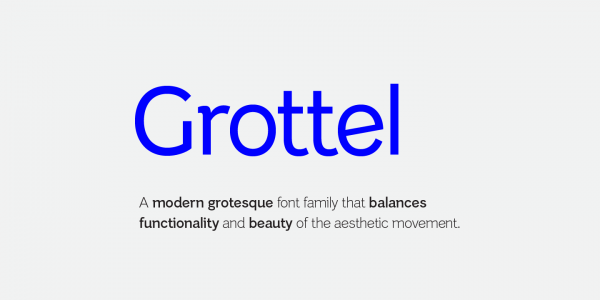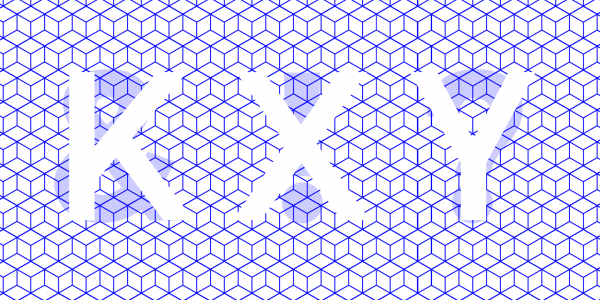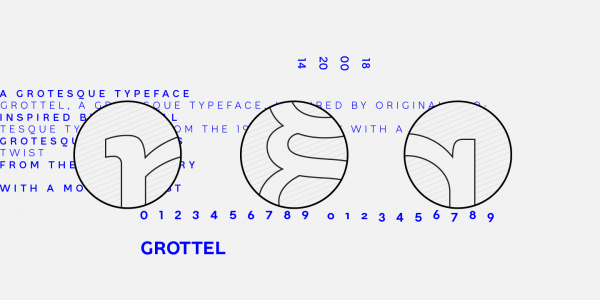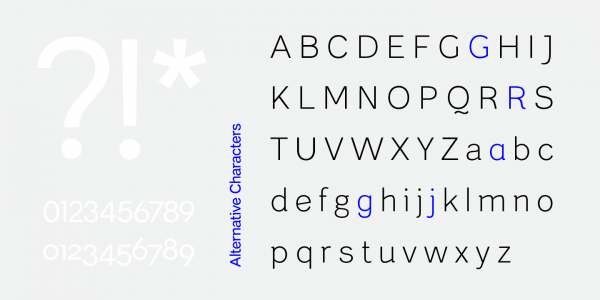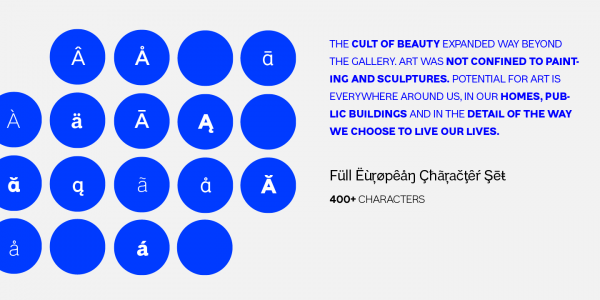
Grottel, a modern grotesque sans serif font family by Rebecca Hurst of The Northern Block Ltd.
The Grottel font family has been published in 2014 by The Northern Block Ltd. Rebecca Hurst, a type designer from Great Britain has created this modern grotesque sans serif typeface. Grottel follows the philosophy of original grotesque fonts with the addition of an enhanced look to ensure a unique personality. Its special details are the result of a meticulously accurate tuning as well as a type design focusing on functionality and usability mixed with the aesthetic of 19th century typefaces.
The Grottel font family consists of 5 weights including more than 400 characters in order to support all European languages. Thanks to Rebecca Hurst’s manually edited kerning, the family provides great legibility. In addition, the Grottel font family is equipped with a full set of ligatures as well as alternative letters to allow you to add more personality to the typeface. This is a great font for headlines and subtitles on posters, signage or in magazines. For additional information, just follow the link below.